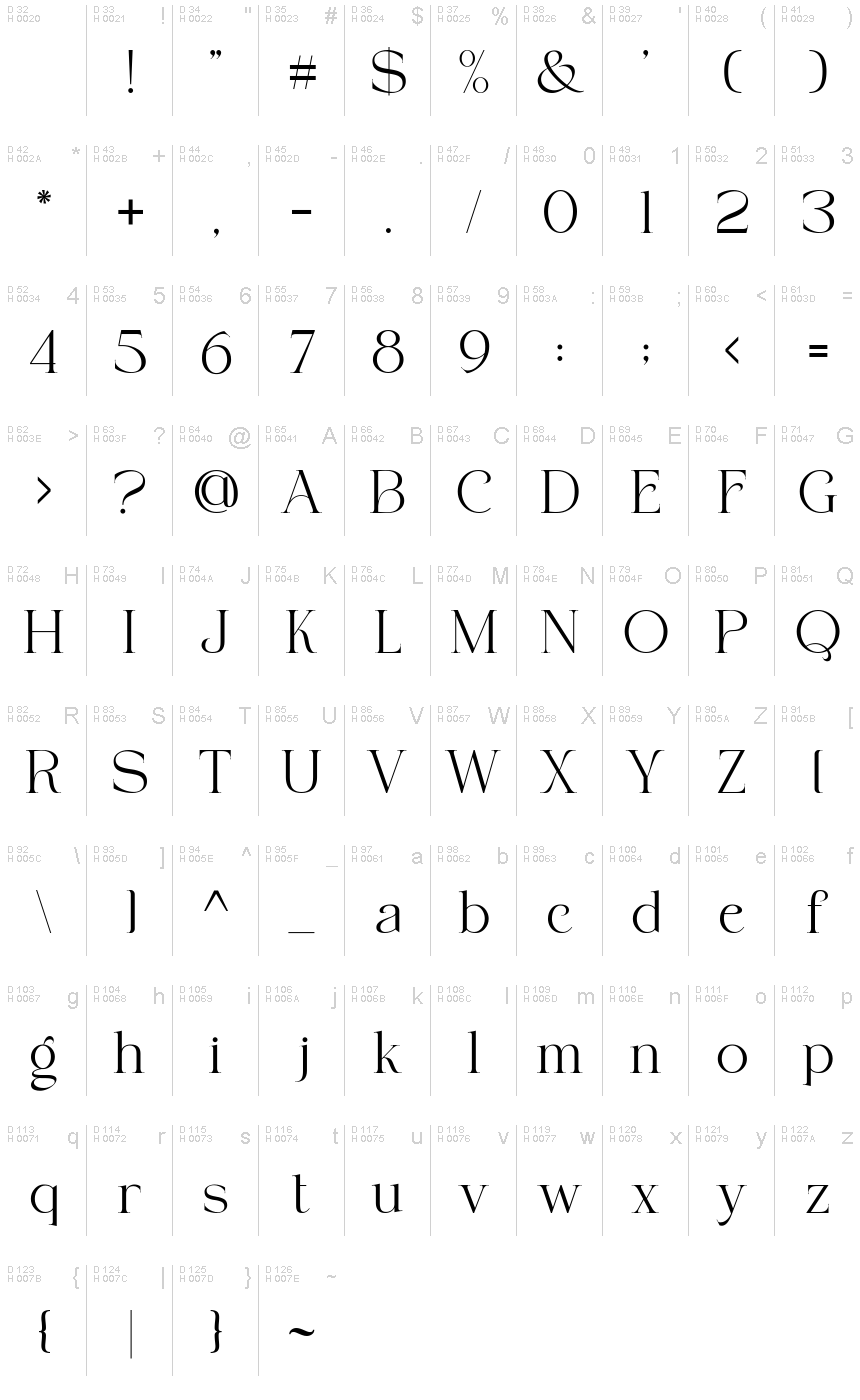
MIDNIGHT SERENITY
Midnight Serenity, a creation by ToniStudio, brings an air of sophistication and timeless elegance with its serif design. The font exudes a classic charm that captures the essence of traditional typefaces while incorporating modern subtleties. Its serifs are crafted with a delicate touch, offering a smooth reading experience that is both comfortable and inviting.
The stylish curves and refined strokes of Midnight Serenity lend themselves perfectly to high-end branding, editorial design, and elegant invitations. Its aesthetic appeal lies in its balance between the stately and the contemporary, making it versatile for both print and digital mediums where grace and readability are paramount. This font is poised to adorn your next project with an understated luxury that speaks volumes in simplicity.